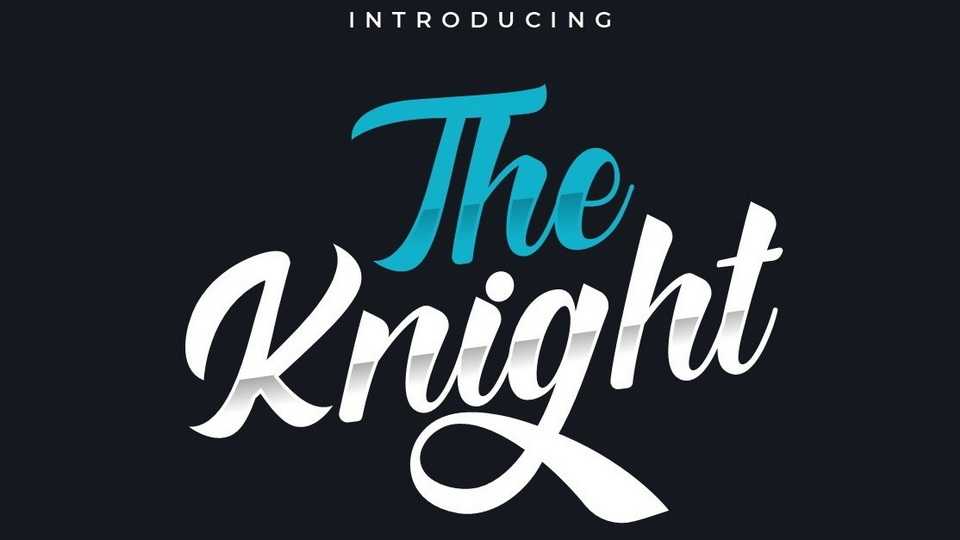
Download The Knight font, a bold script typeface that feels playfully nostalgic and delivers an incredible vintage aesthetic. Use The Knight to add that special retro touch to any design idea.